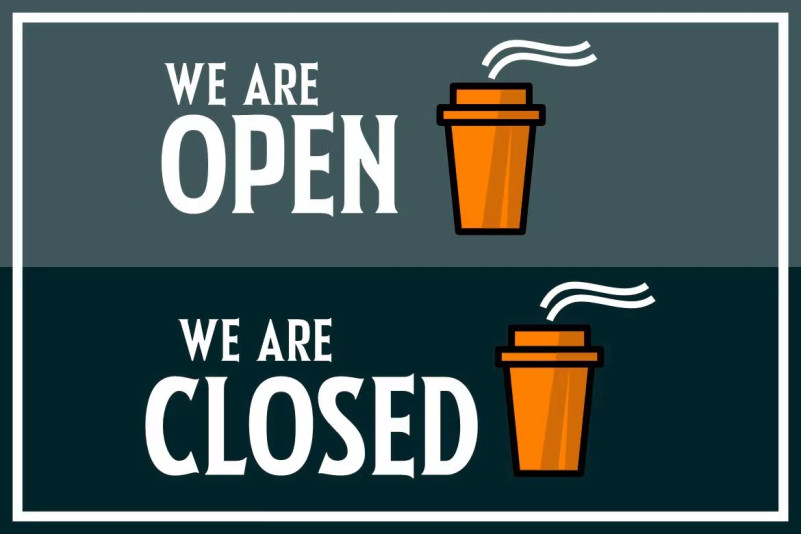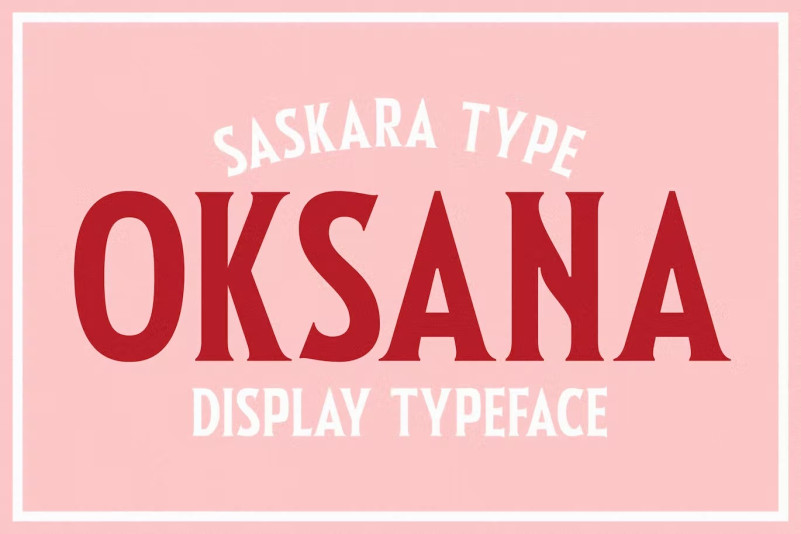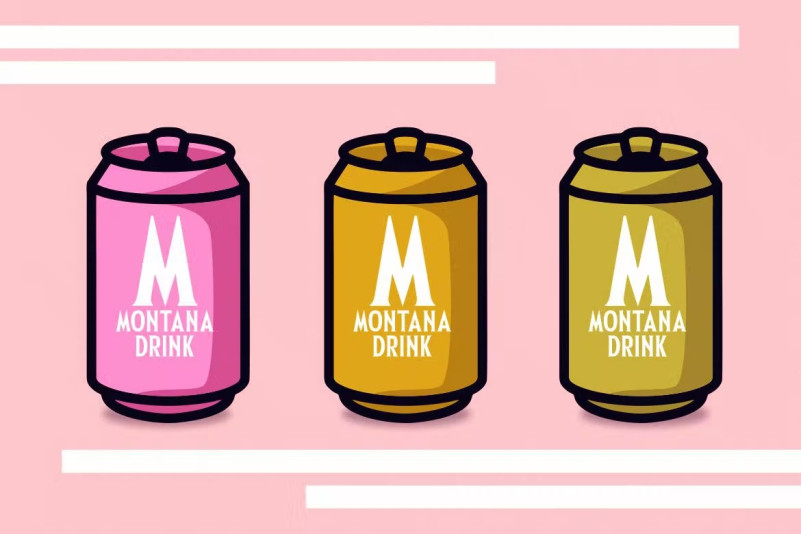
Oksana Font
Oksana Serif Font is a vintage font designed to look like it’s from a certain time period in the past. This font can be used for a variety of purposes, such as creating a nostalgic or retro feel in a design or evoking a sense of history. They can be used in a variety of settings, including in print materials, on websites, in logos and branding, and in other types of designs. Some common uses for vintage fonts include creating vintage-inspired logos and branding, adding a retro touch to marketing materials, and creating a nostalgic feeling in designs.